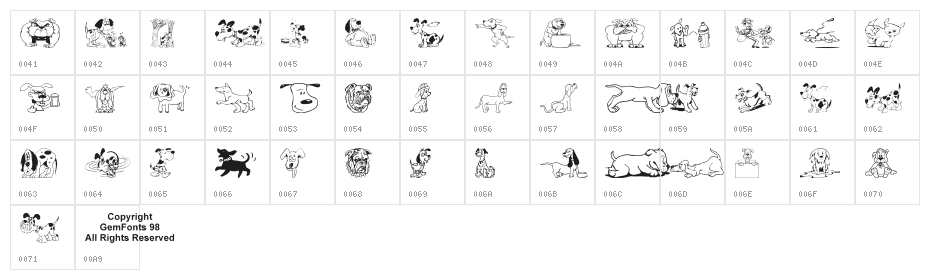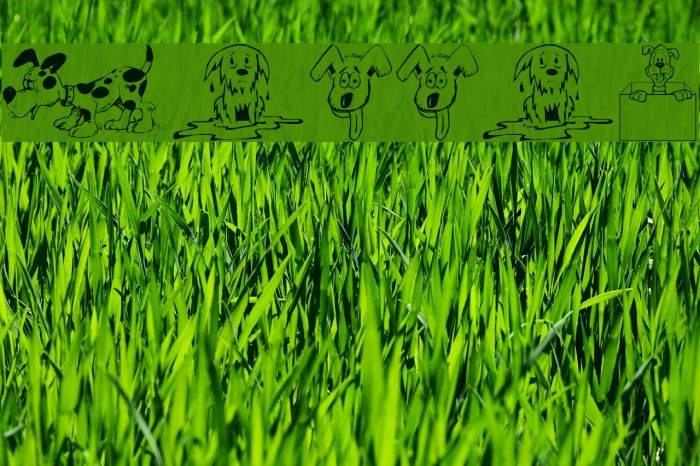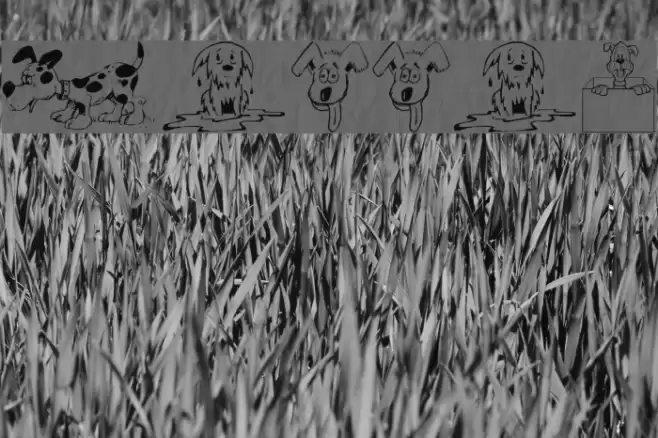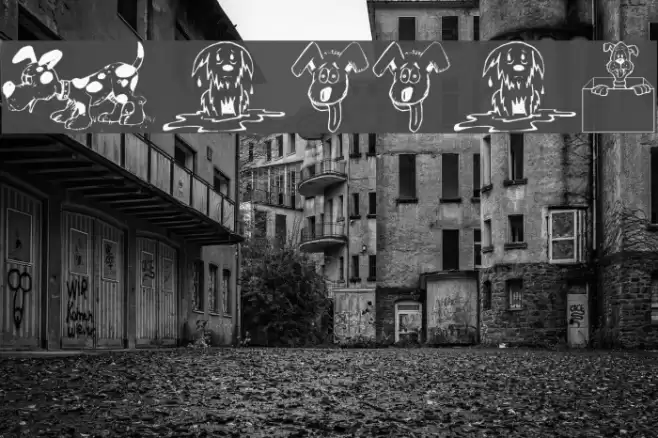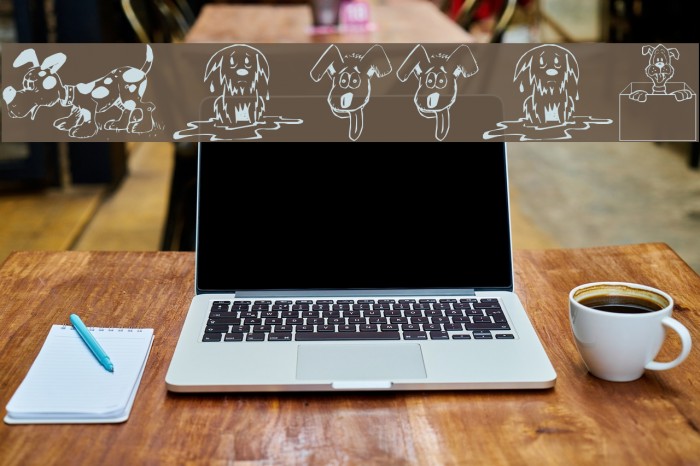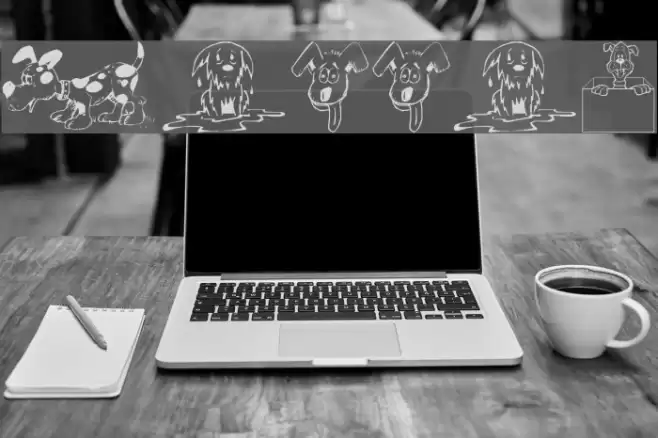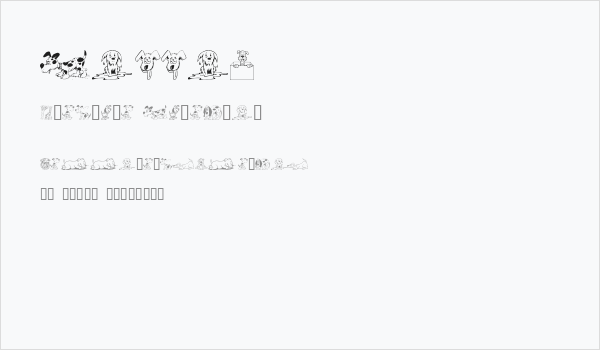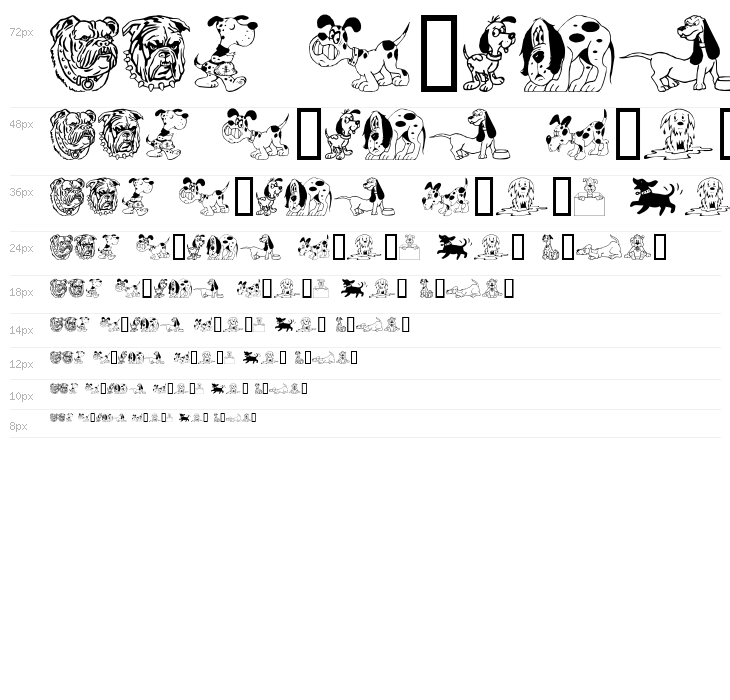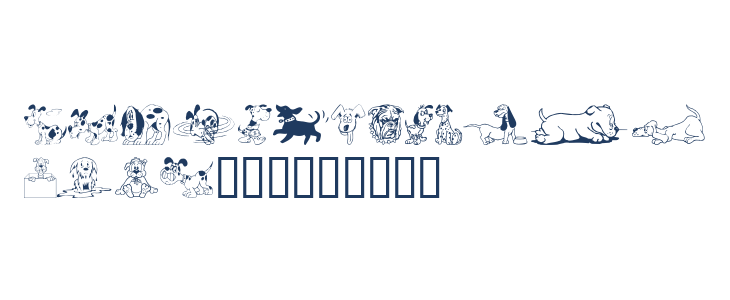
Doggon Font
A playful decorative font featuring a variety of hand-drawn cartoon dog illustrations in place of standard alphanumeric characters, each glyph representing a unique dog pose or scene. The style is whimsical and detailed, with a focus on expressive, humorous canine characters.
| Overall Style | Playful, Whimsical, Decorative |
| Use Case | Logos, Posters, Children's materials, Themed event invitations |
| Proposed Projects | Children's books, pet shop branding, greeting cards, playful posters, educational materials for kids. |